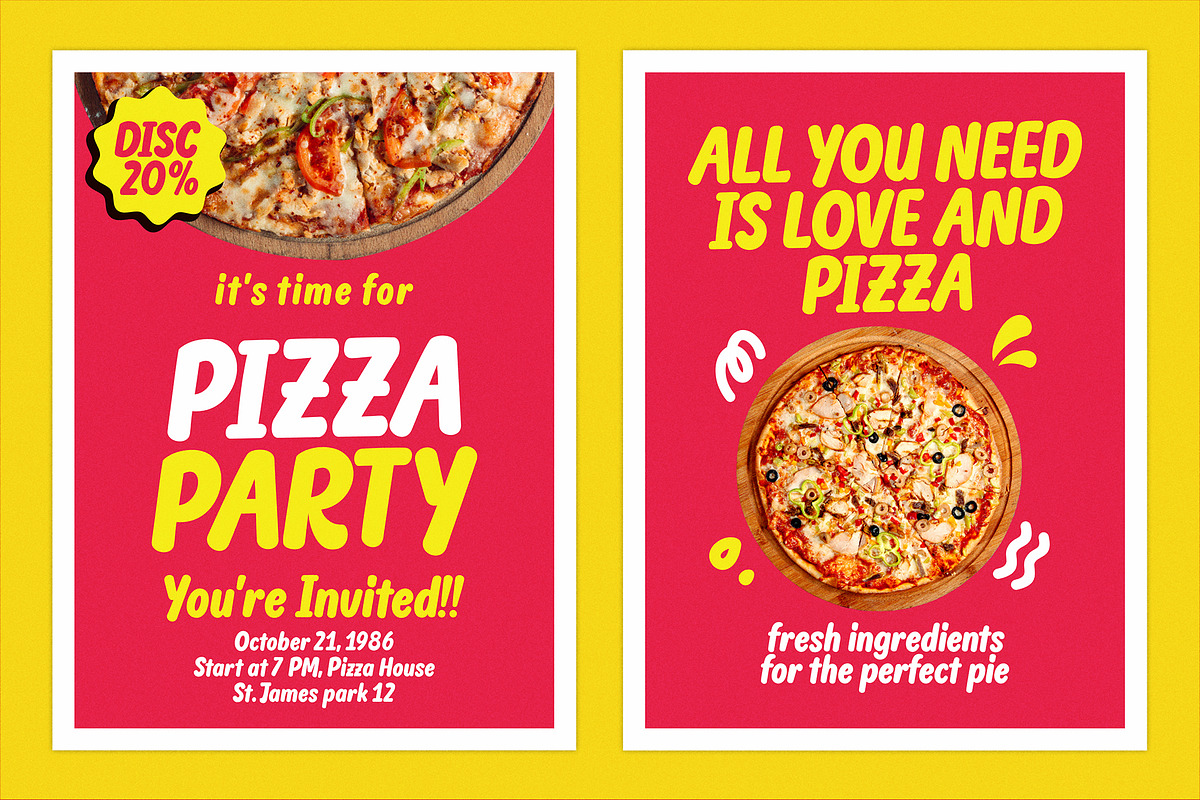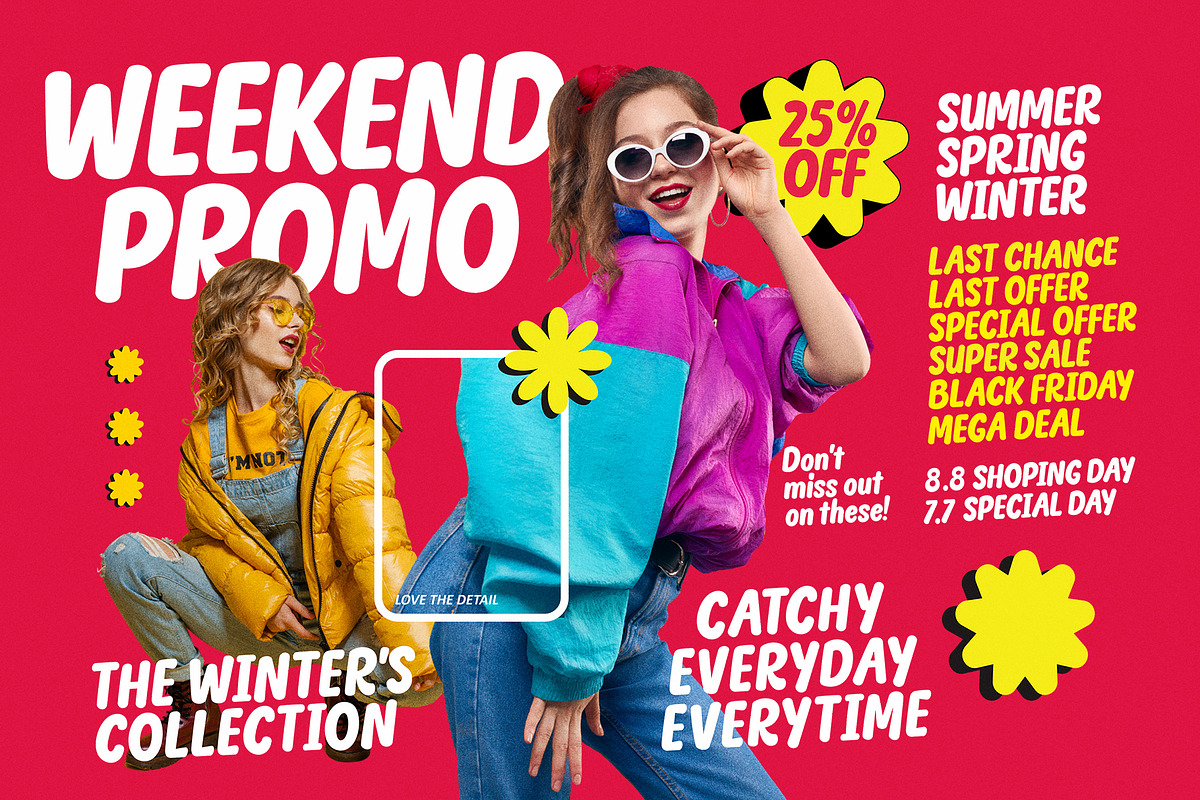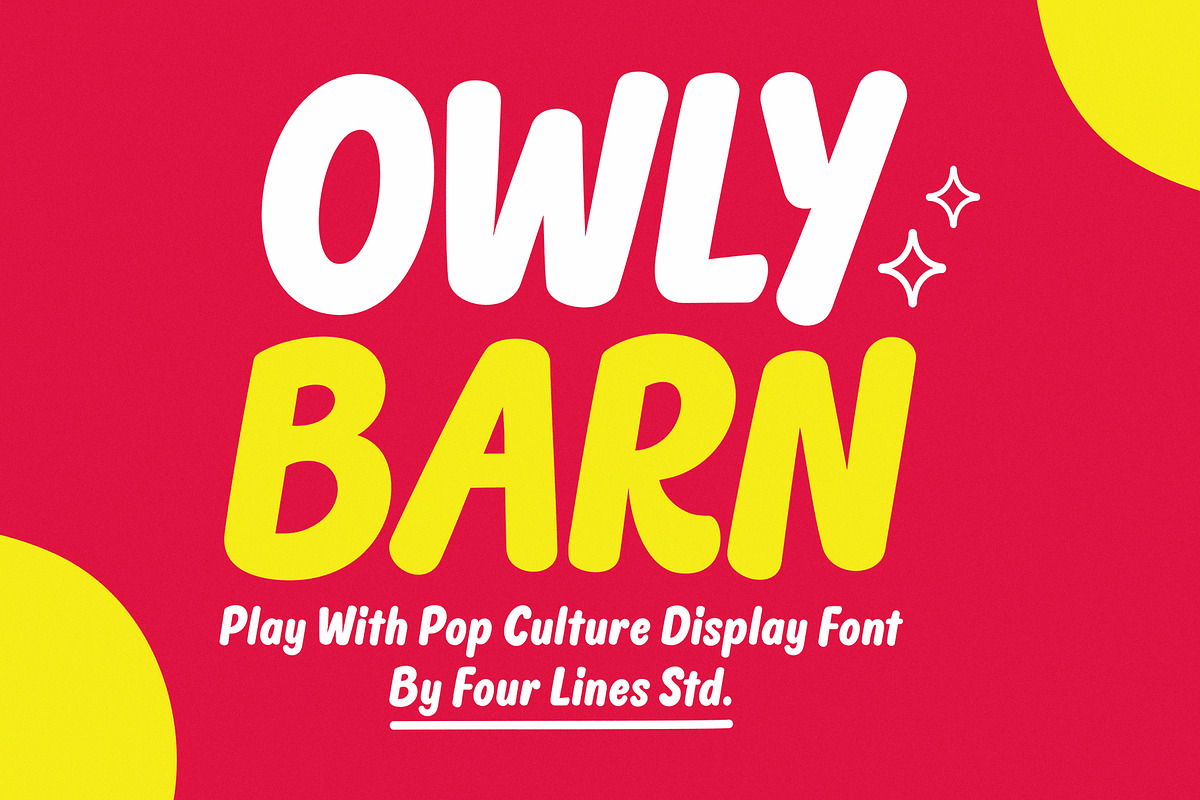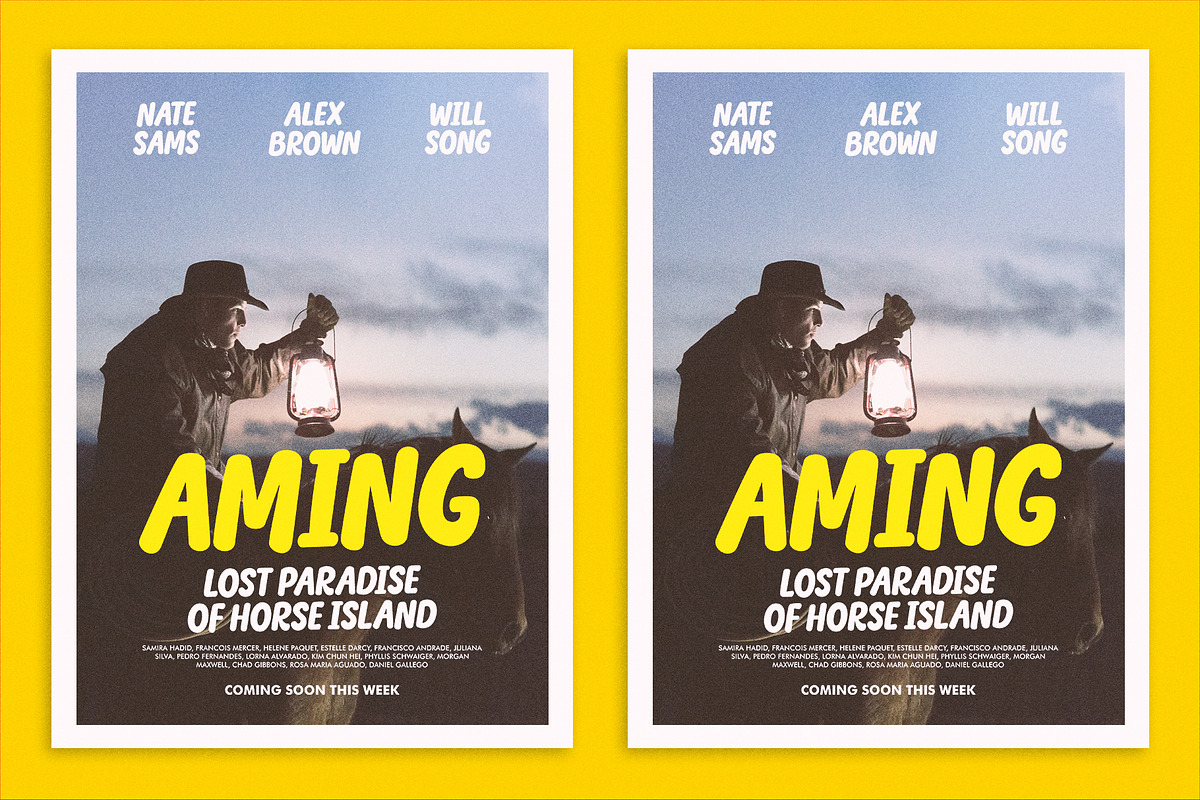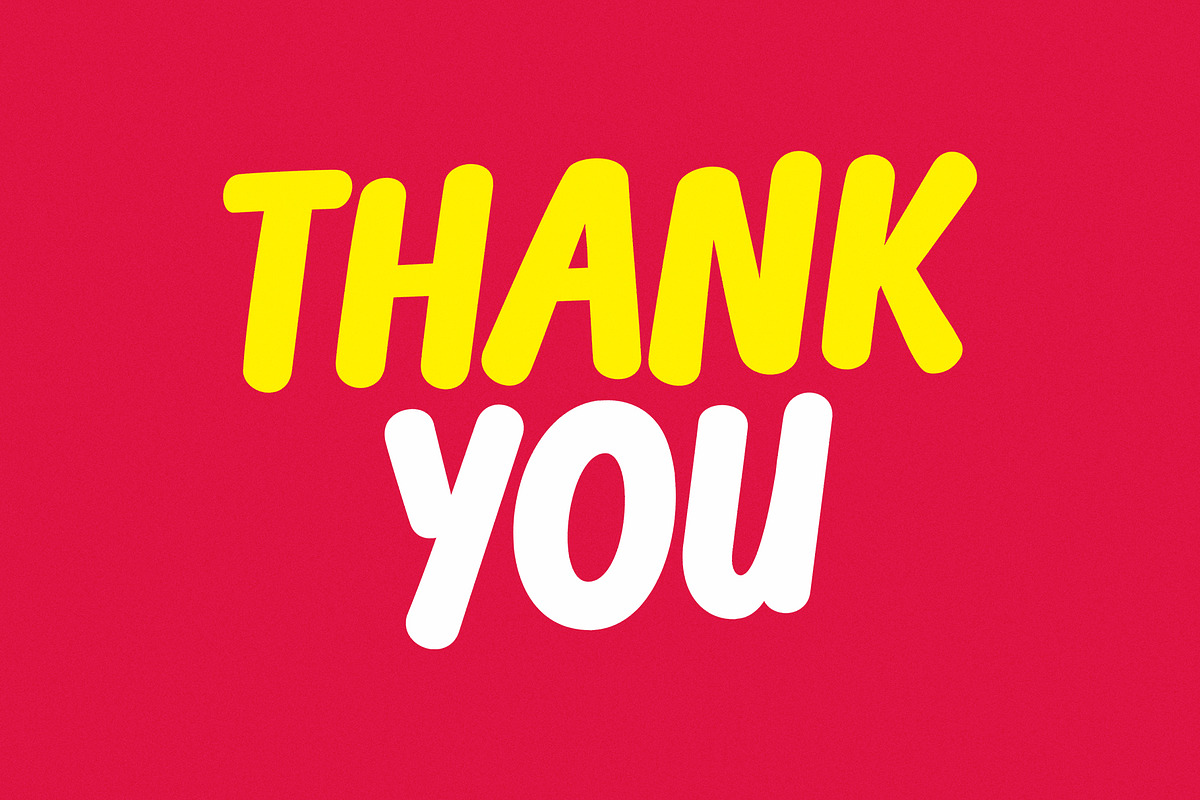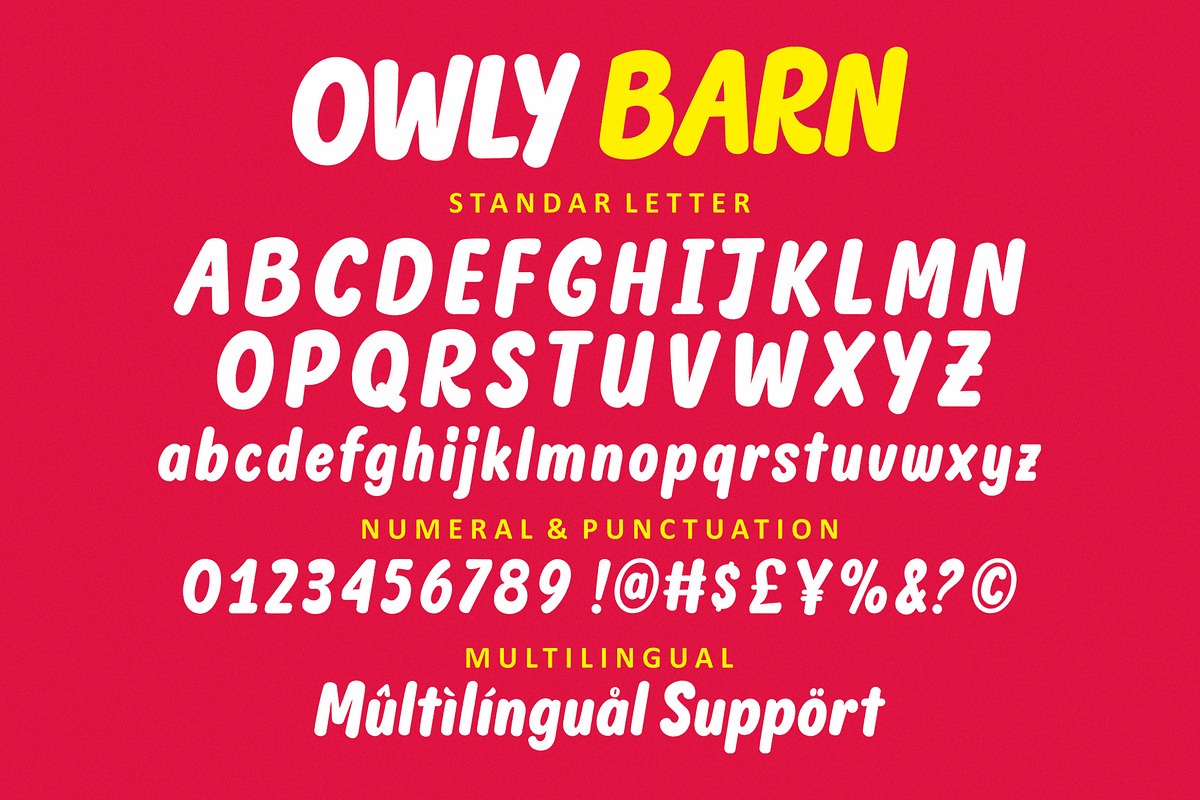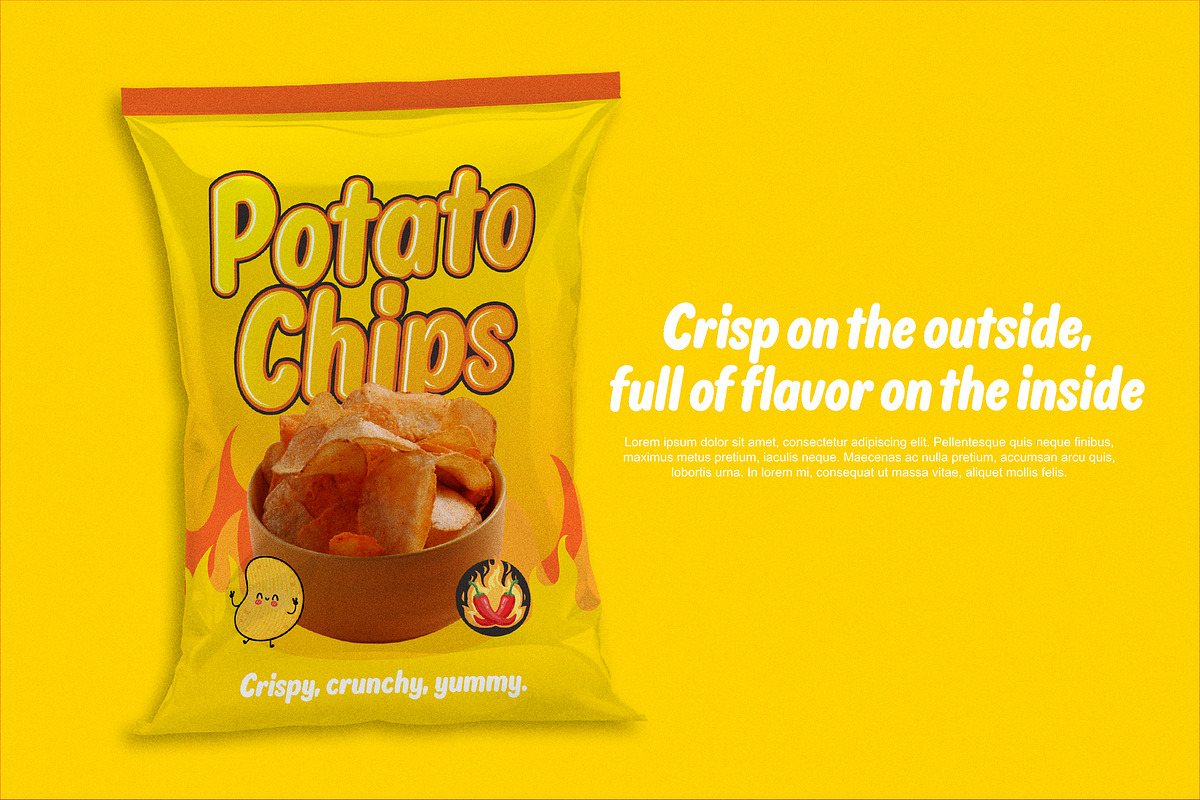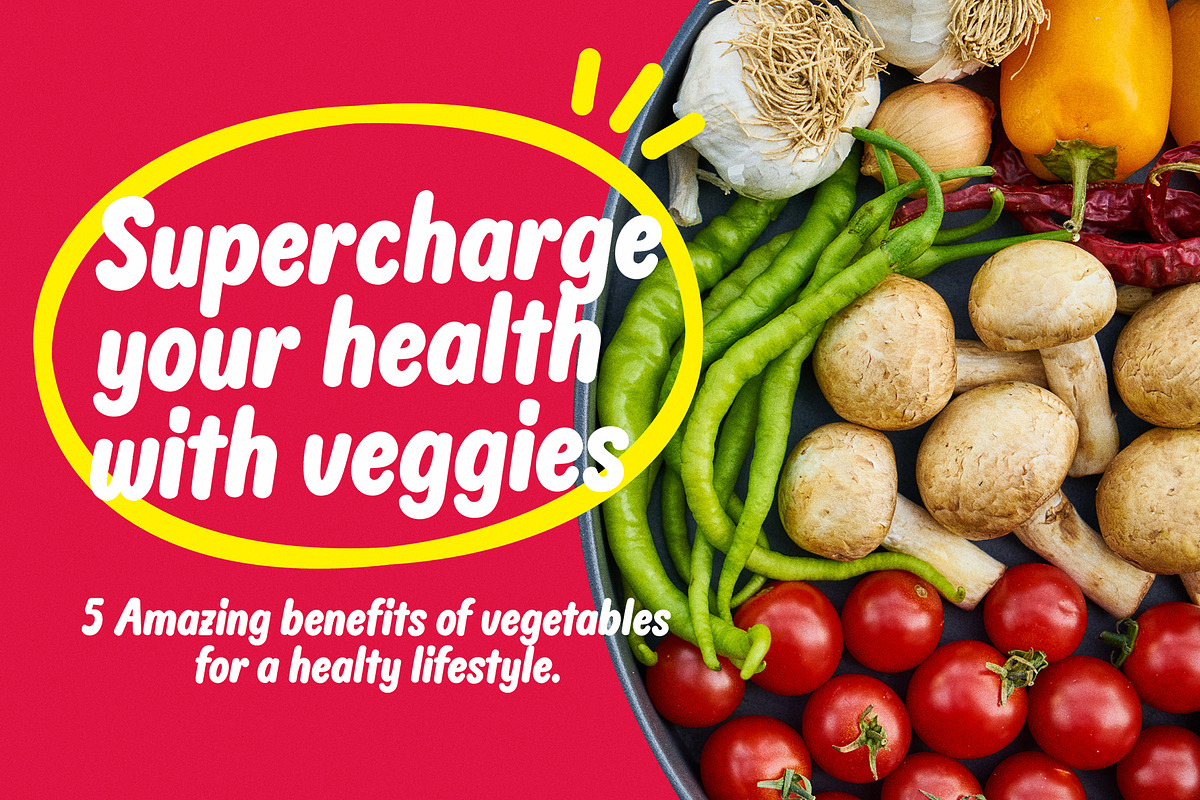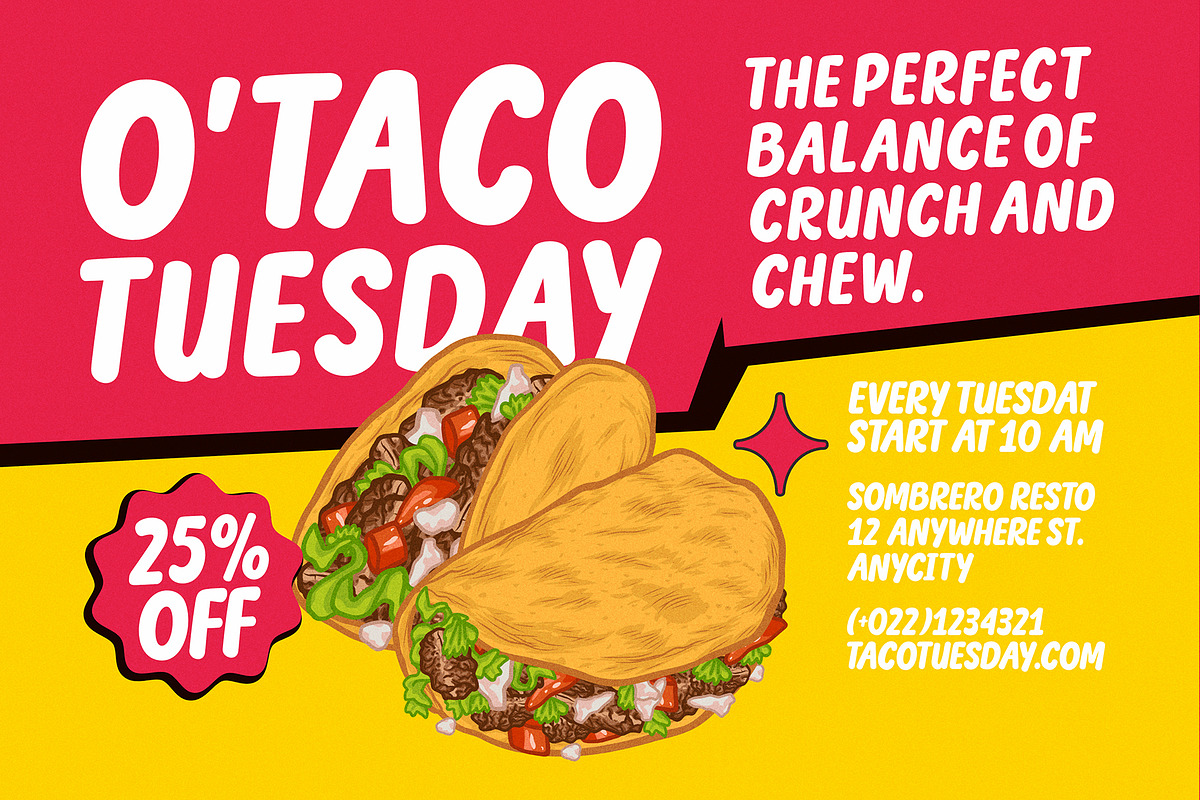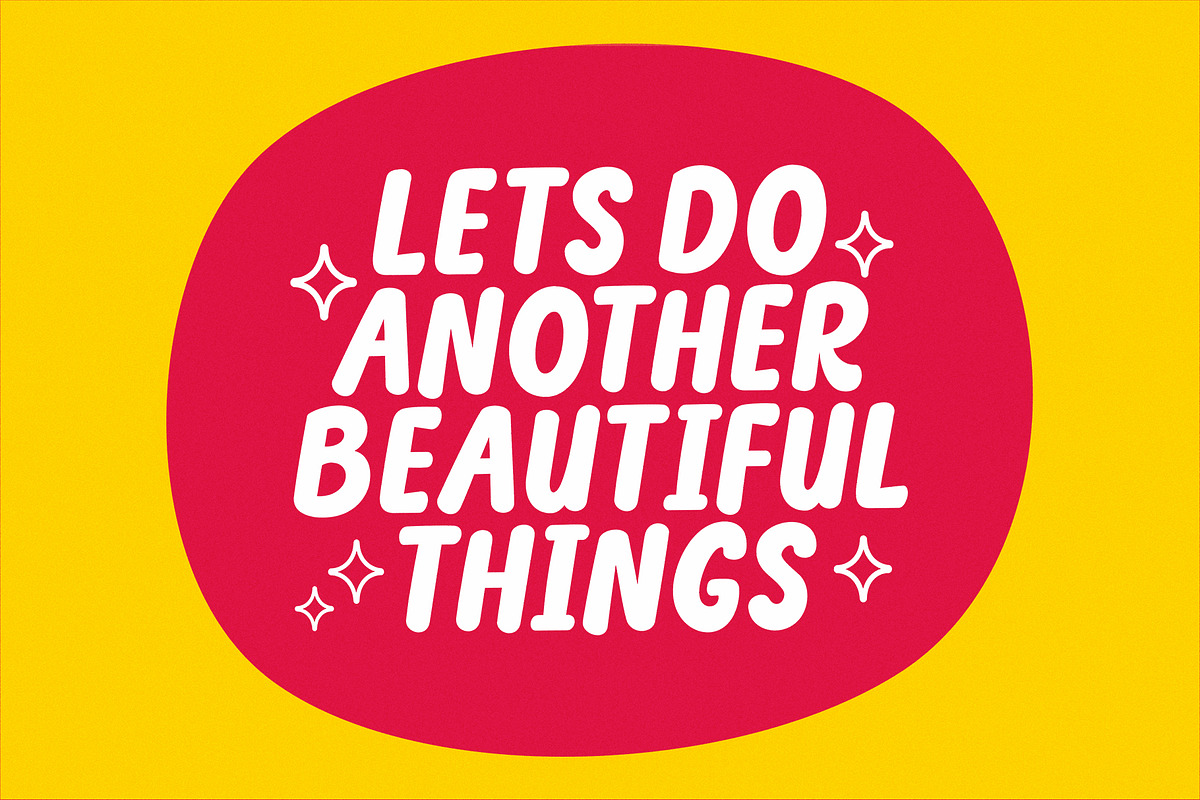
OWLY BARN - Friendly and Playful
Owly Barn is a Friendly and Playful font. The rounded corners of Owly Barn give it a sense of joy and positivity. Also friendly and approachable vibe. Owly Barn is incredibly versatile. It can be used across various mediums, including digital and print, and it adapts seamlessly to different sizes and resolutions. This versatility makes it a go-to choice for graphic designers, marketers, and creatives alike.